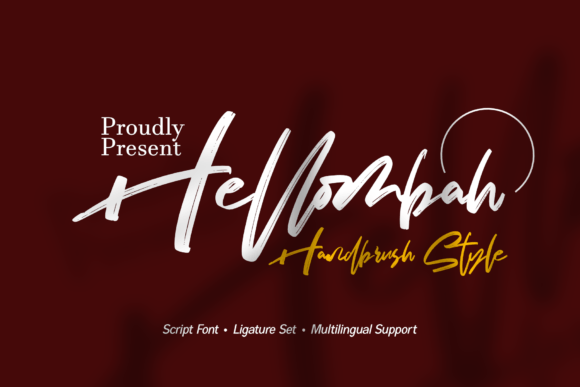
In a world where creativity reigns supreme, let Hellombah Font be your muse, a script font crafted with elegance just for you. Dive into the realm of artistic expression with Hellombah, a font that dances across your screen like a graceful ballerina, leaving a trail of elegance and charm.
Hellombah isn't just a font; it's a gateway to a world of creative possibilities. Envision your designs adorned with Hellombah's beauty, captivating your audience with its intricate strokes and lively personality. Each letter, meticulously crafted, carries an emotional weight, evoking a sense of warmth and authenticity.
Whether you're designing a signature logo, a captivating YouTube title, or an eye-catching TikTok video, Hellombah will elevate your creations to new heights. Its versatility knows no bounds, seamlessly adapting to branding projects, wedding invitations, product packaging, and more.
With Hellombah, you'll discover a font that brings your vision to life, transforming ordinary designs into extraordinary masterpieces. Its realistic handwritten style adds a touch of authenticity and charm, making your creations resonate with your audience on a deeper level.